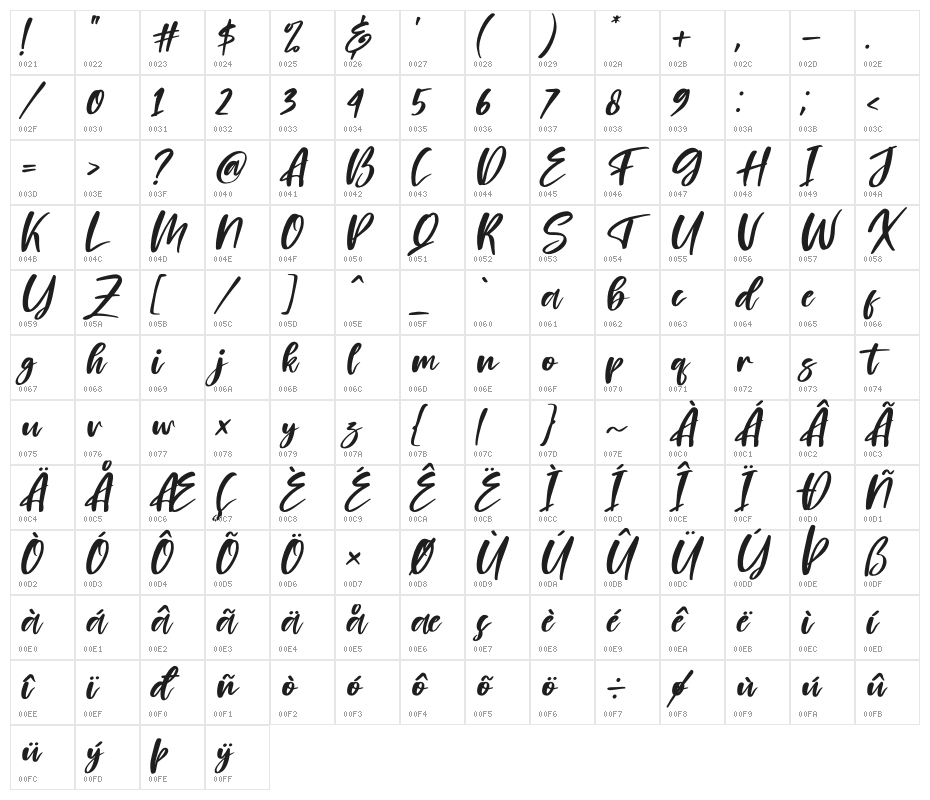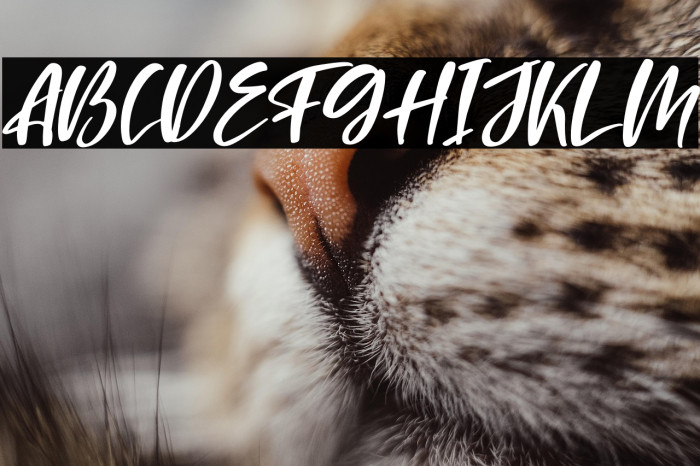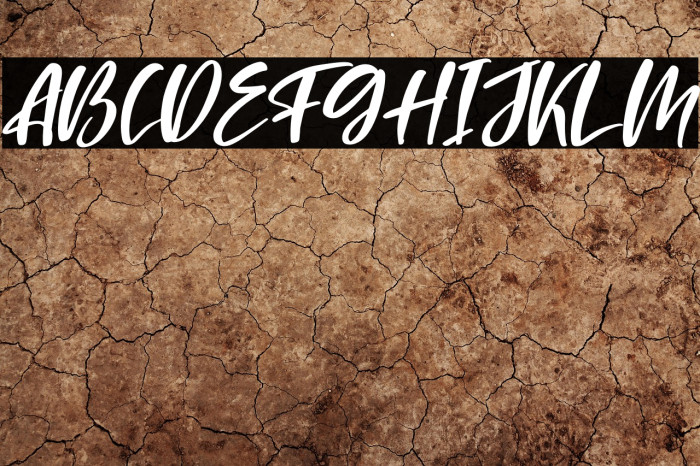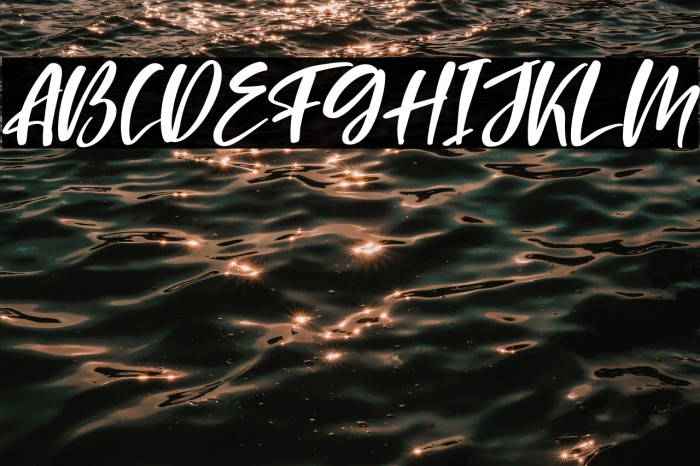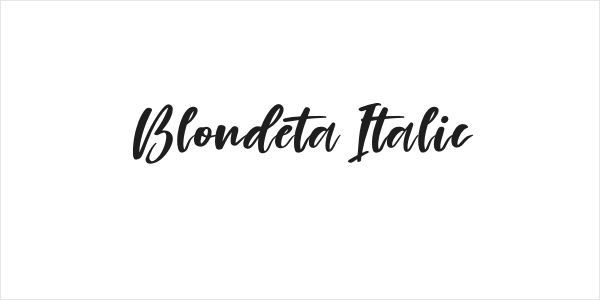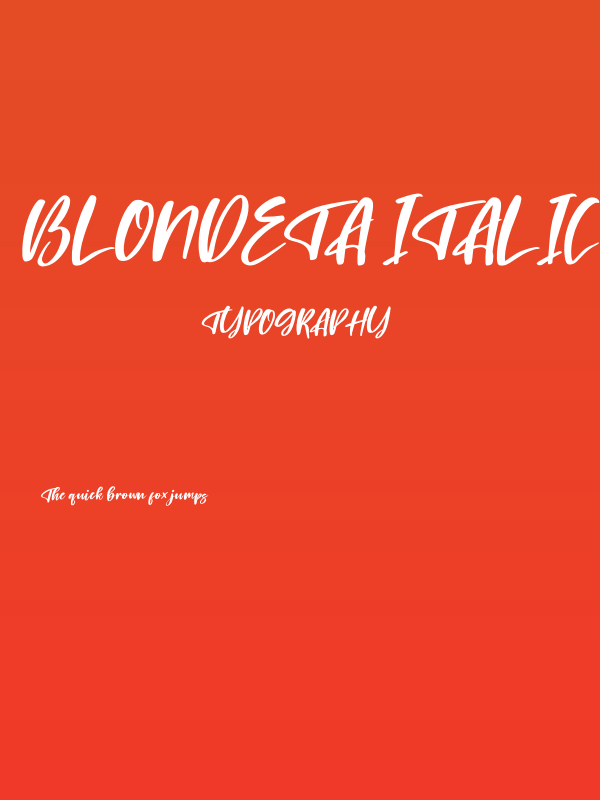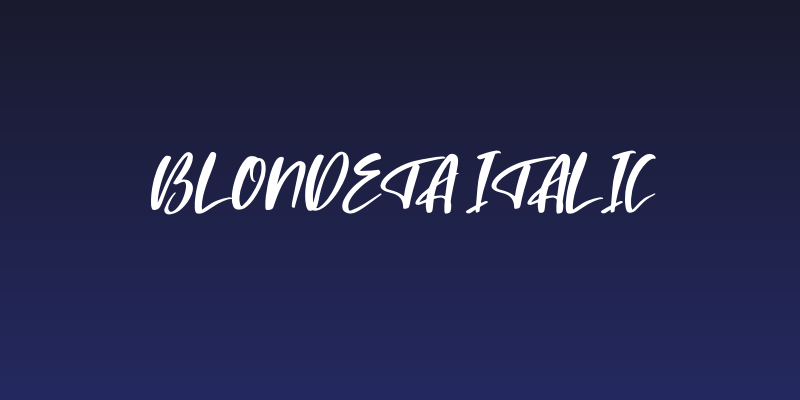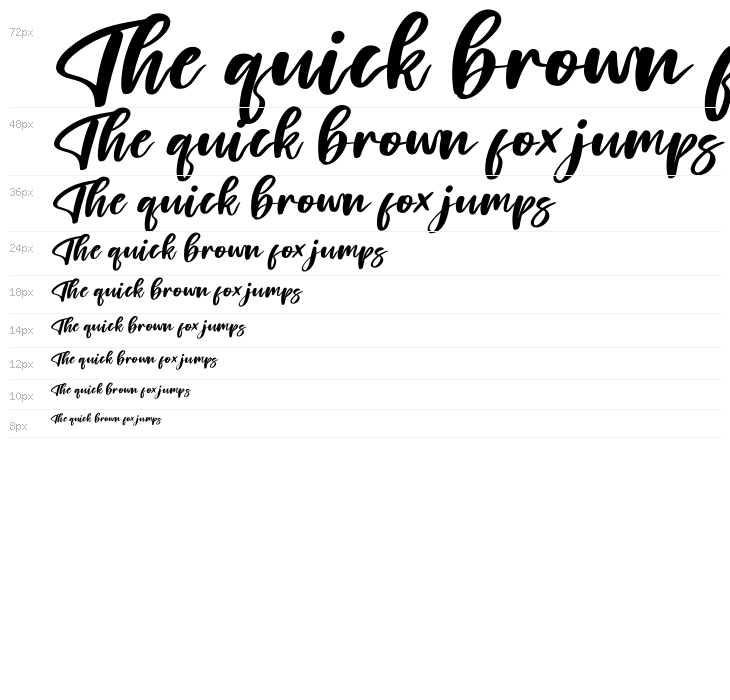
Blondeta Italic Font
Blondeta Italic Description
This font features a dynamic and expressive script style, characterized by its fluid, cursive strokes and a sense of motion. The letters are connected, with a natural flow that mimics handwriting, giving it a personal and artistic touch. The uppercase letters are bold and prominent, while the lowercase letters maintain a consistent rhythm, enhancing readability. The numerals and special characters are crafted with the same attention to detail, ensuring a cohesive look across all elements. The overall appearance is both elegant and modern, making it suitable for a variety of creative applications.
| Use Case | Logos, Invitations, Headlines |
| Proposed Projects | Ideal for wedding invitations, branding, social media graphics, and artistic projects. |